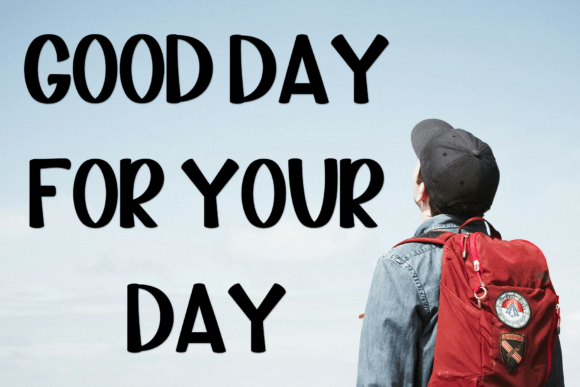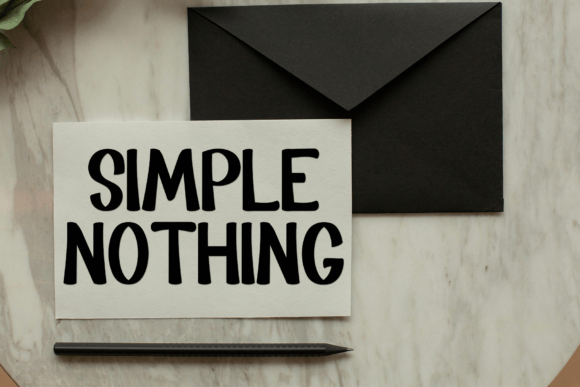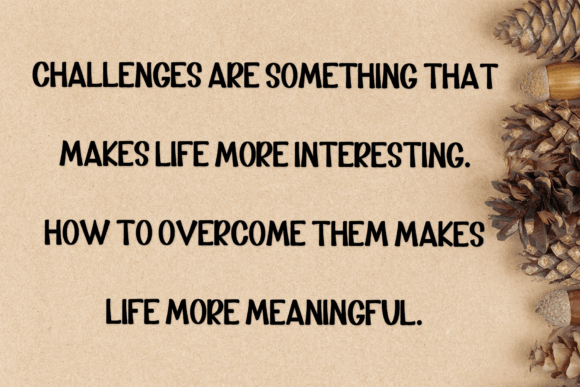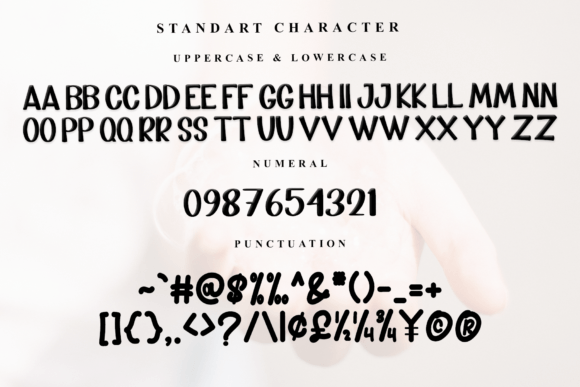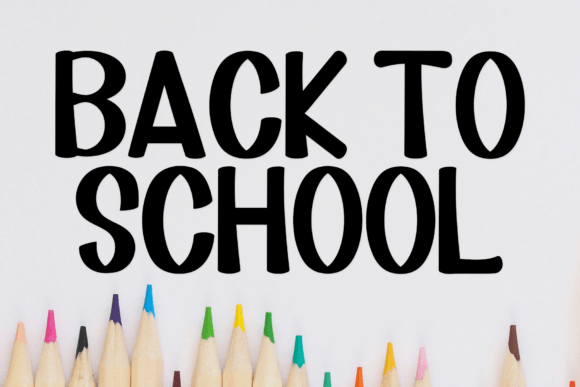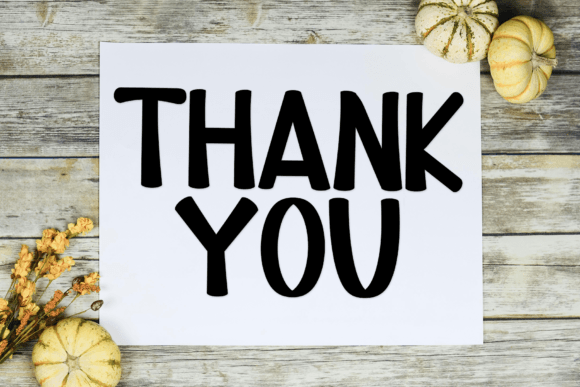
Introducing Comic Jungle Font: A Timeless Handwritten Delight
Are you on the hunt for a font that can add a touch of personality and whimsy to your designs? Look no further than Comic Jungle Font, a lovely and timeless handwritten font that’s perfect for creating eye-catching logos, branding, and quotes. With its unique and beautiful touch, this font is sure to make your design come alive!
What Makes Comic Jungle Font So Special?
Comic Jungle Font is a standout in the world of typography, and for good reason. Each letter has been carefully crafted to have a distinct and beautiful touch, giving your designs a level of personality and charm that’s hard to find elsewhere. Whether you’re working on a logo, branding materials, or a quote, this font is sure to make your design pop.
Comic Jungle Font is a versatile font that’s perfect for designers and crafters of all levels. Whether you’re creating digital content or working on a craft project, this font is easy to use and can add a touch of personality to any design. With its PUA coding, you can access all the amazing glyphs and ligatures easily, making it simple to create stunning designs.
Key Features of Comic Jungle Font
- Timeless Handwritten Style: Comic Jungle Font has a classic, handwritten look that’s perfect for creating eye-catching designs.
- Unique and Beautiful Touch: Each letter has been carefully crafted to have a distinct and beautiful touch, giving your designs a level of personality and charm.
- PUA Coded: With PUA coding, you can access all the amazing glyphs and ligatures easily, making it simple to create stunning designs.
- Perfect for Logos, Branding, and Quotes: Comic Jungle Font is perfect for creating eye-catching logos, branding materials, and quotes that will grab attention.
- Experiment with Different Sizes and Colors: Comic Jungle Font looks great in a variety of sizes and colors, so don’t be afraid to experiment and find the perfect combination for your design.
- Use it with Other Fonts: Comic Jungle Font pairs well with other fonts, so try using it with a bold font for a contrasting look.
- Take Advantage of Glyphs and Ligatures: With PUA coding, you can easily access all the glyphs and ligatures, making it simple to add a touch of personality to your designs.
- What is Comic Jungle Font?: Comic Jungle Font is a lovely and timeless handwritten font that’s perfect for creating eye-catching logos, branding materials, and quotes.